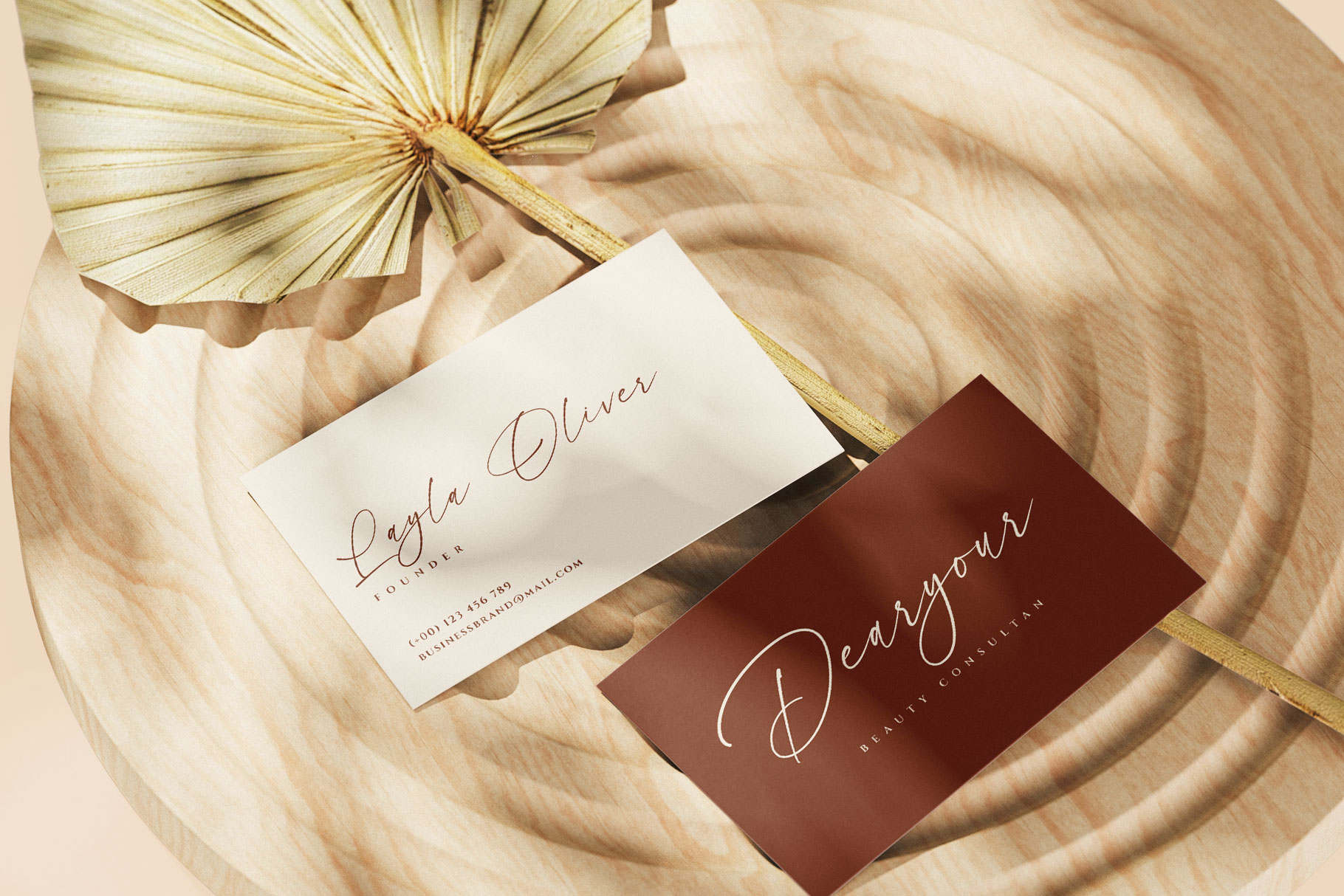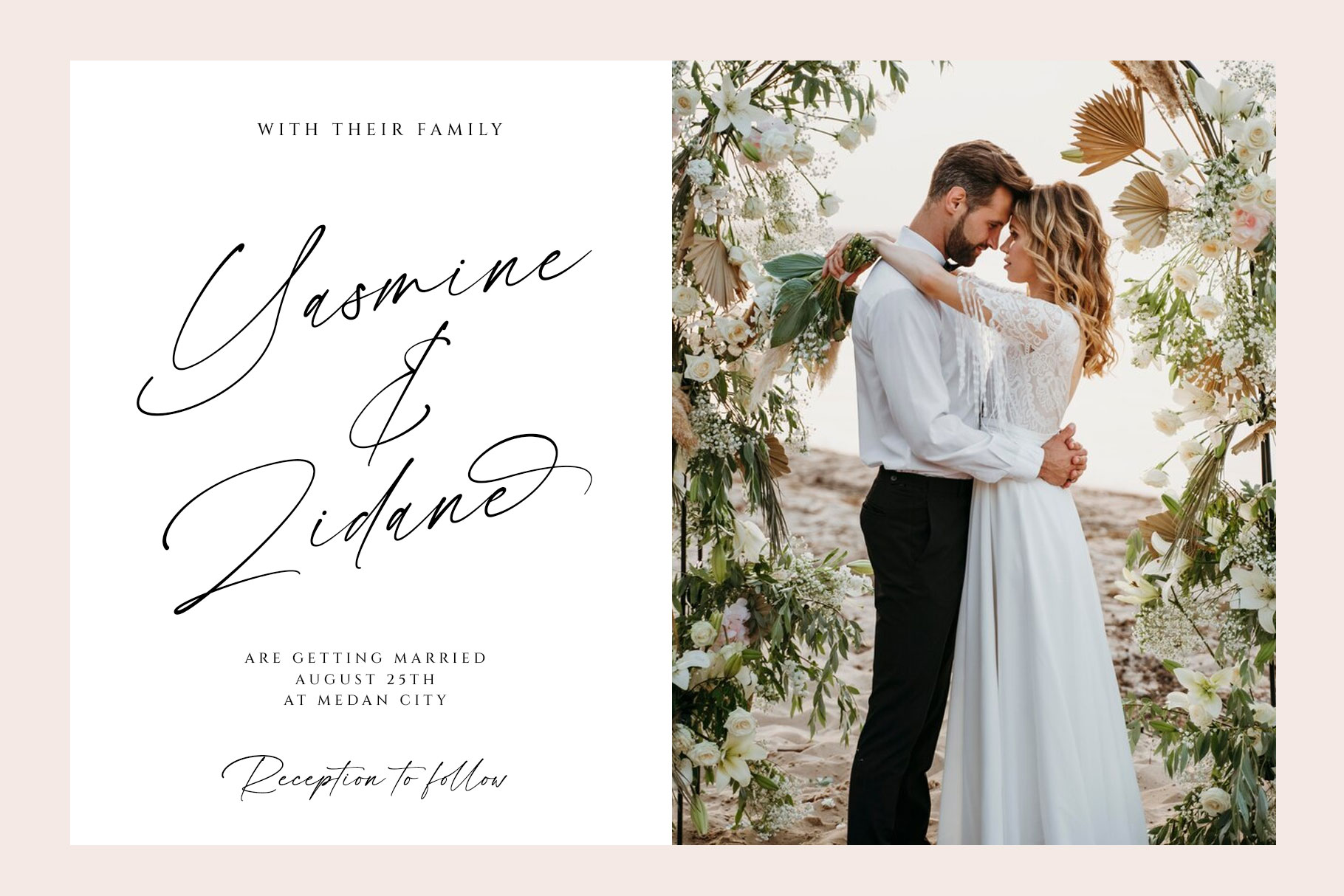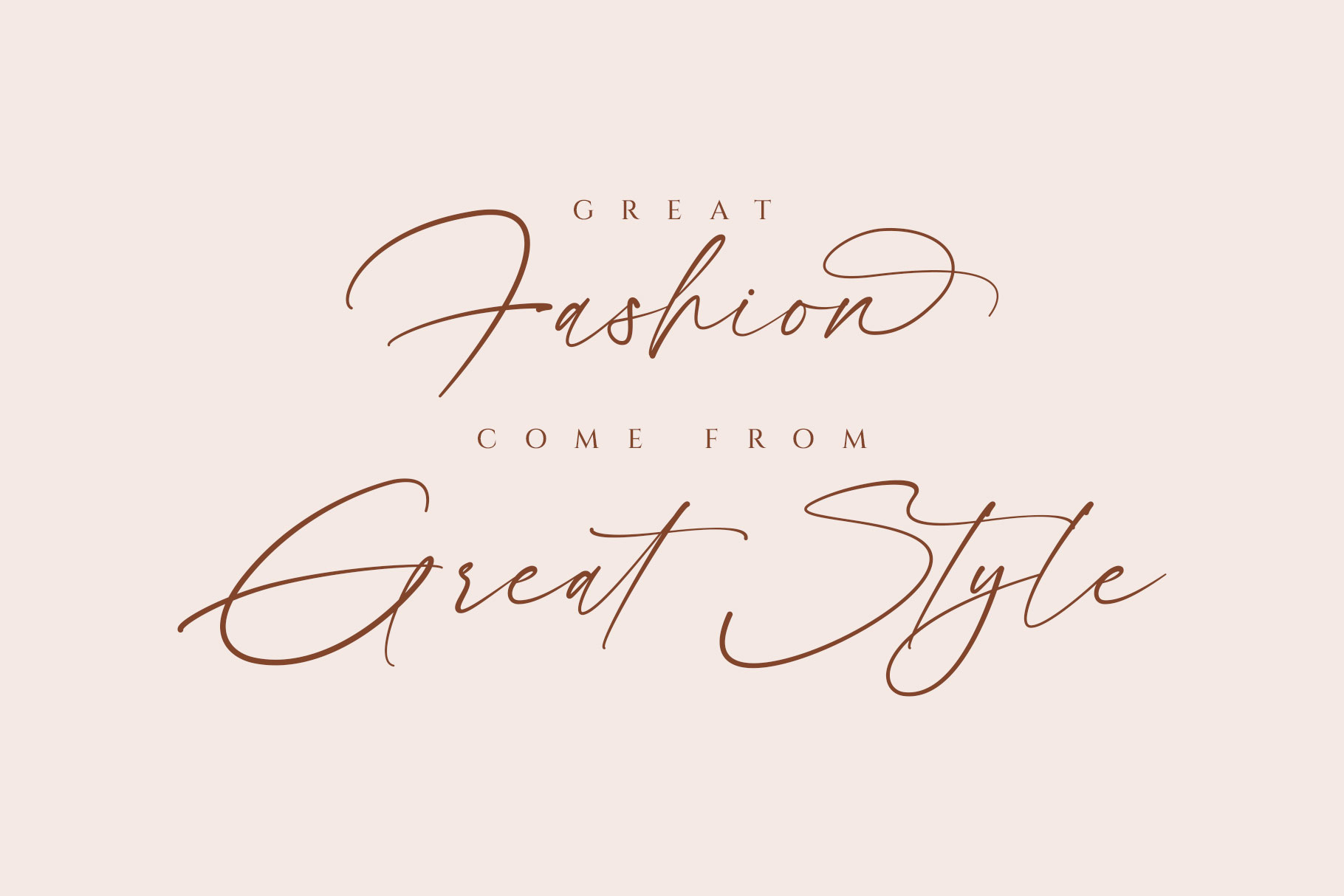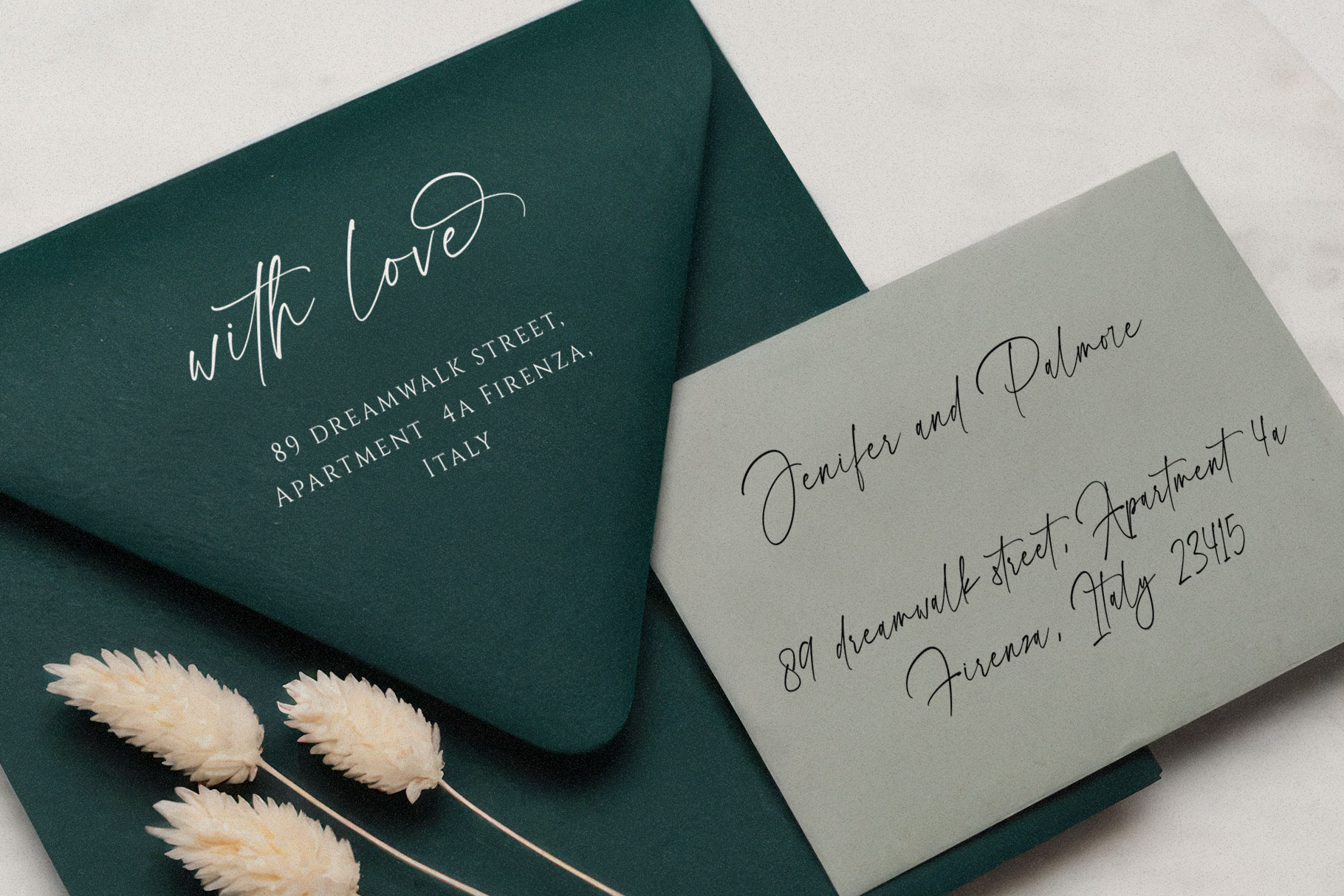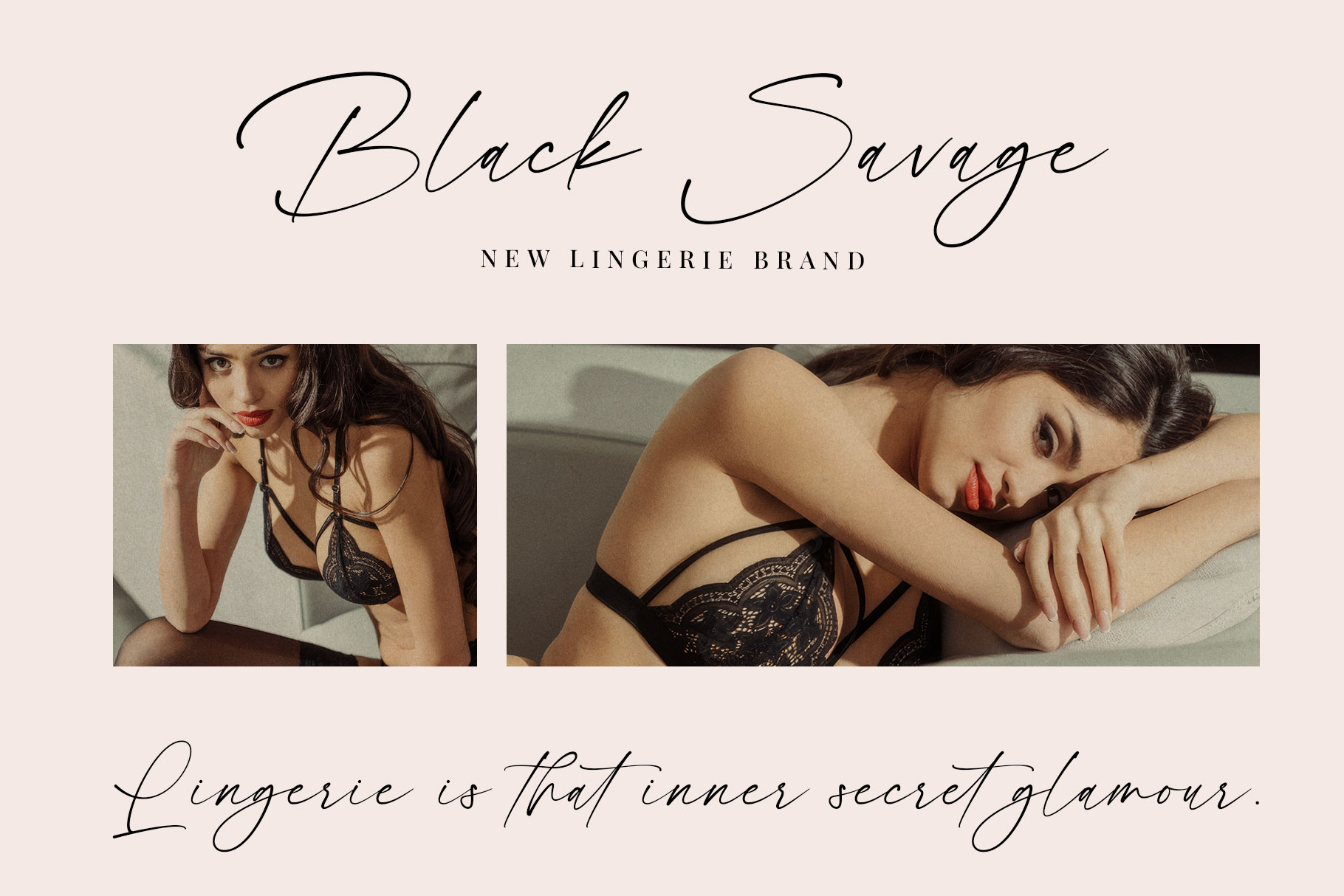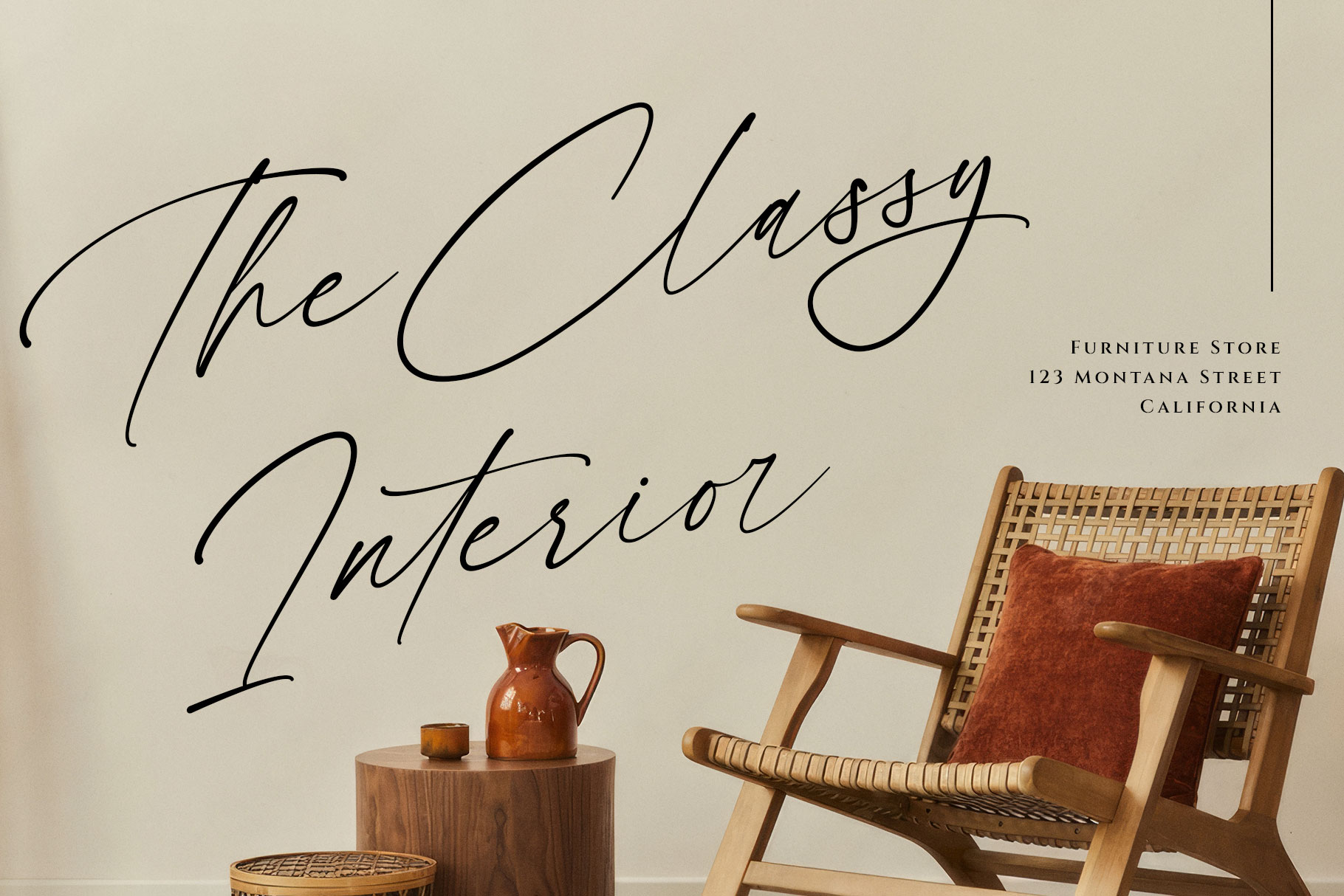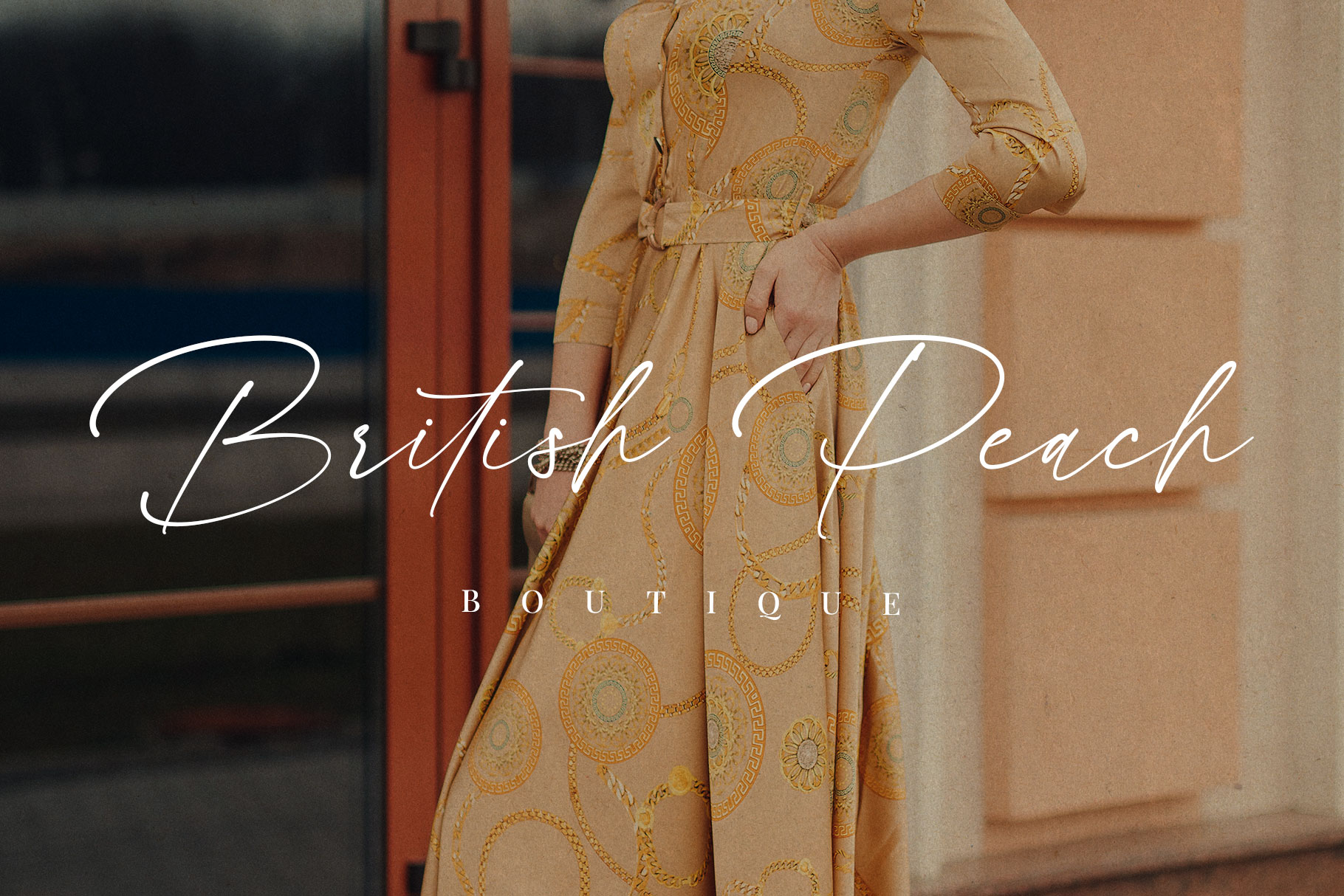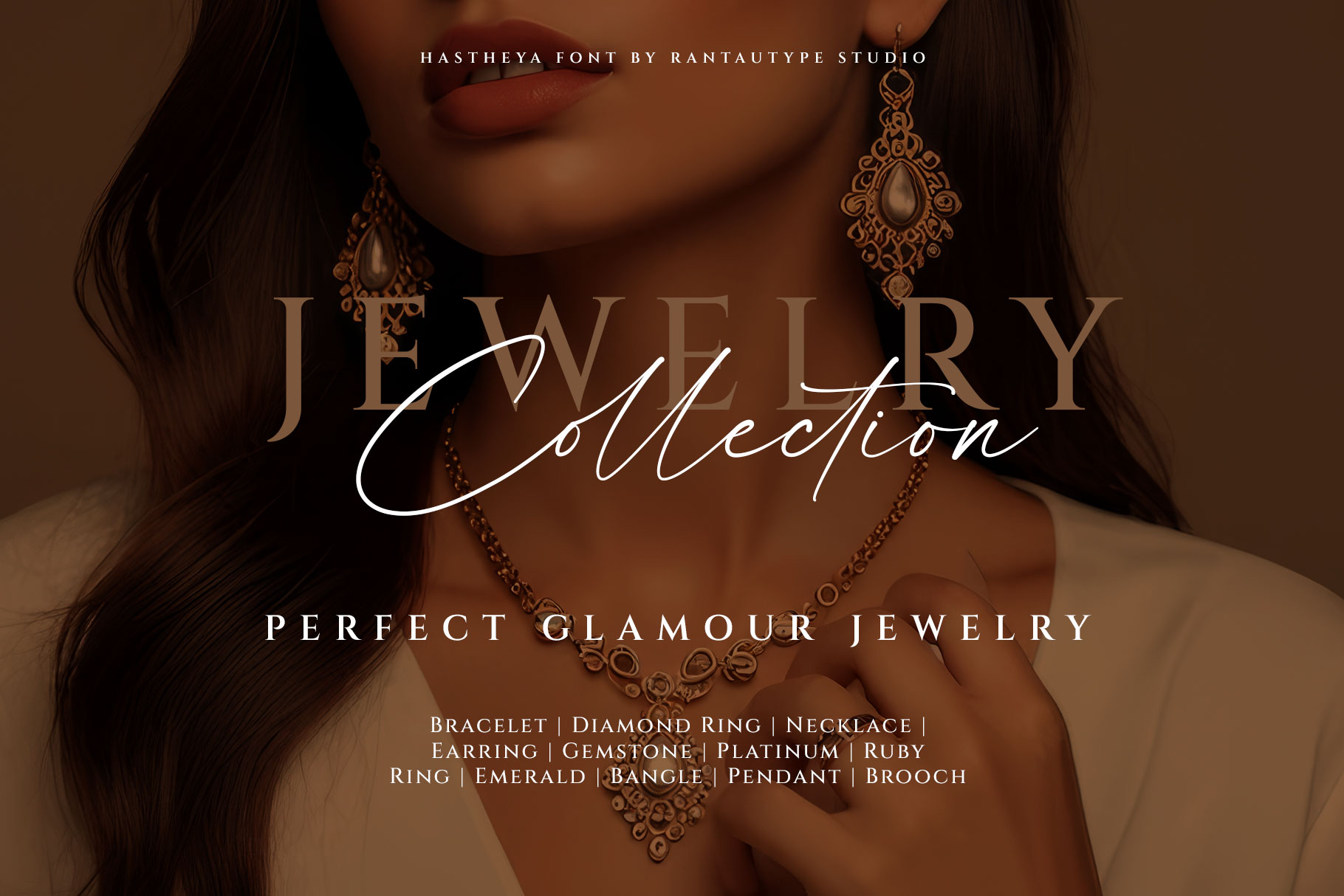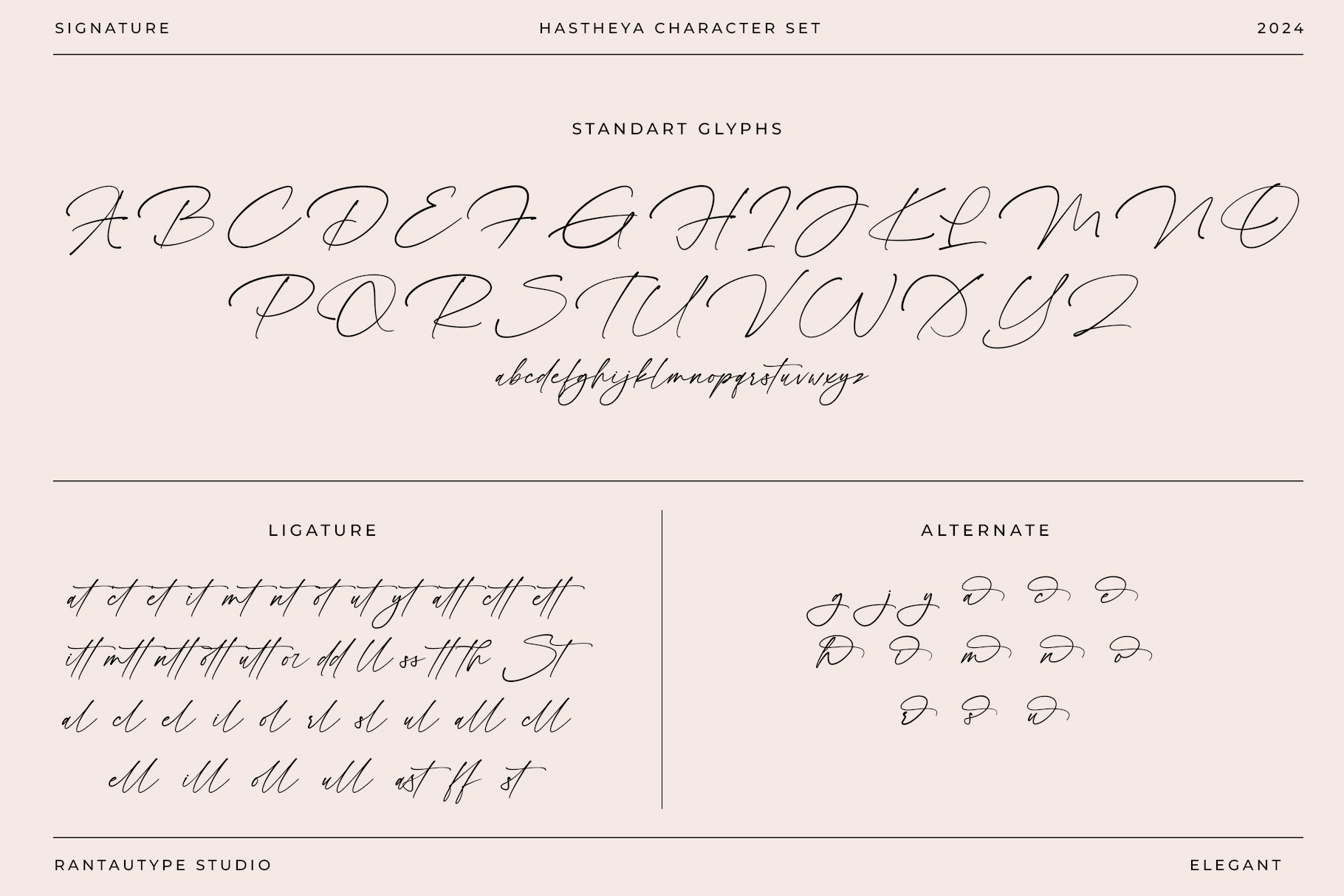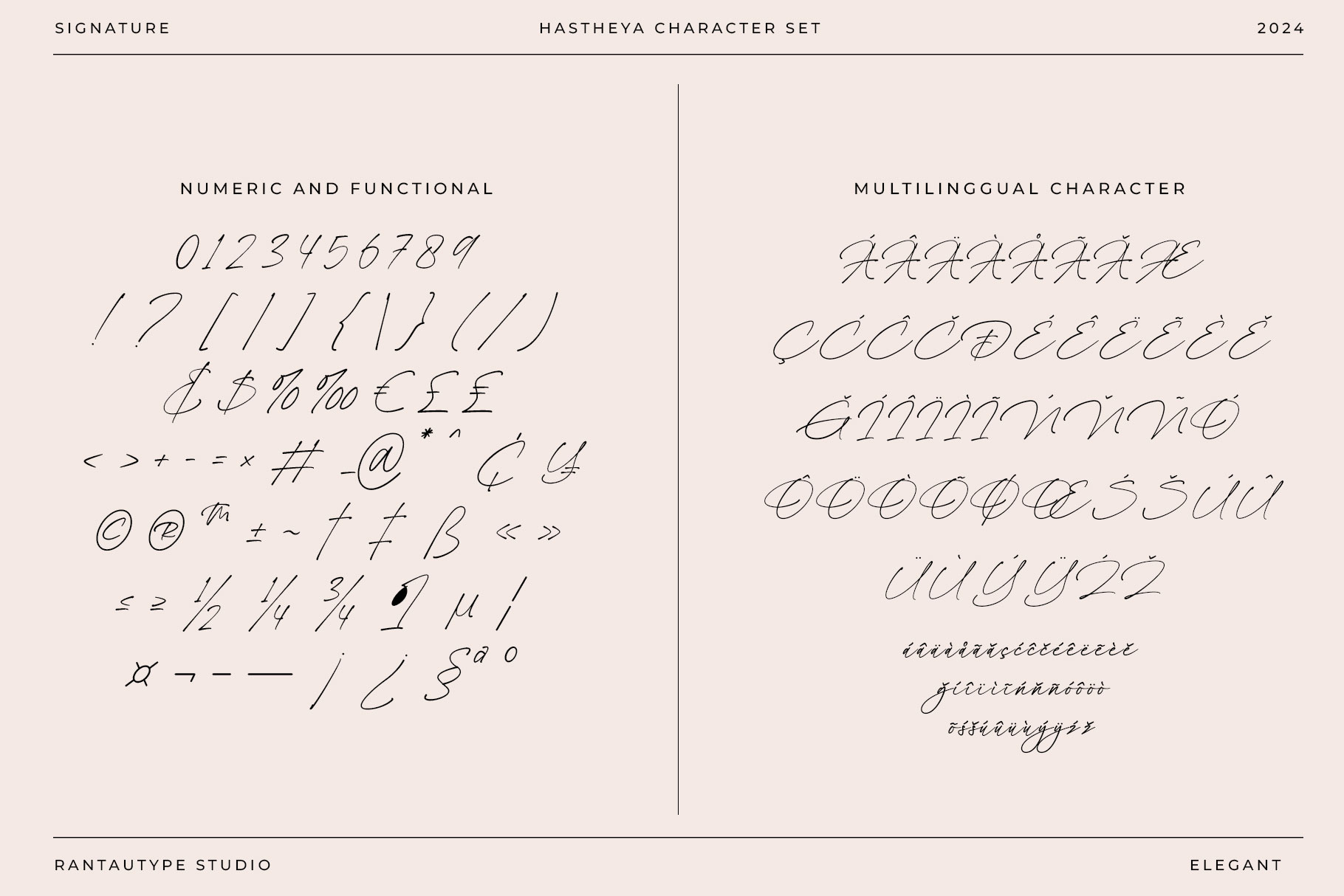
Hastheya Chic Stylish Signature Font
Hastheya is chic signature font with stylish flow hand sign. Hastheya come with modern style inspire by branded fashion. We keep this font look modern, fashionable, chic, stylish and eye catch.
Hastheya is a perfect choice for any creative endeavor, chic, lifestyle design such as logos, title, watermark on photography, cover, branding, display and magazine, wedding event, corporate brand, quotes, album cover, business card, business project, company branding and more project with handwritten taste.